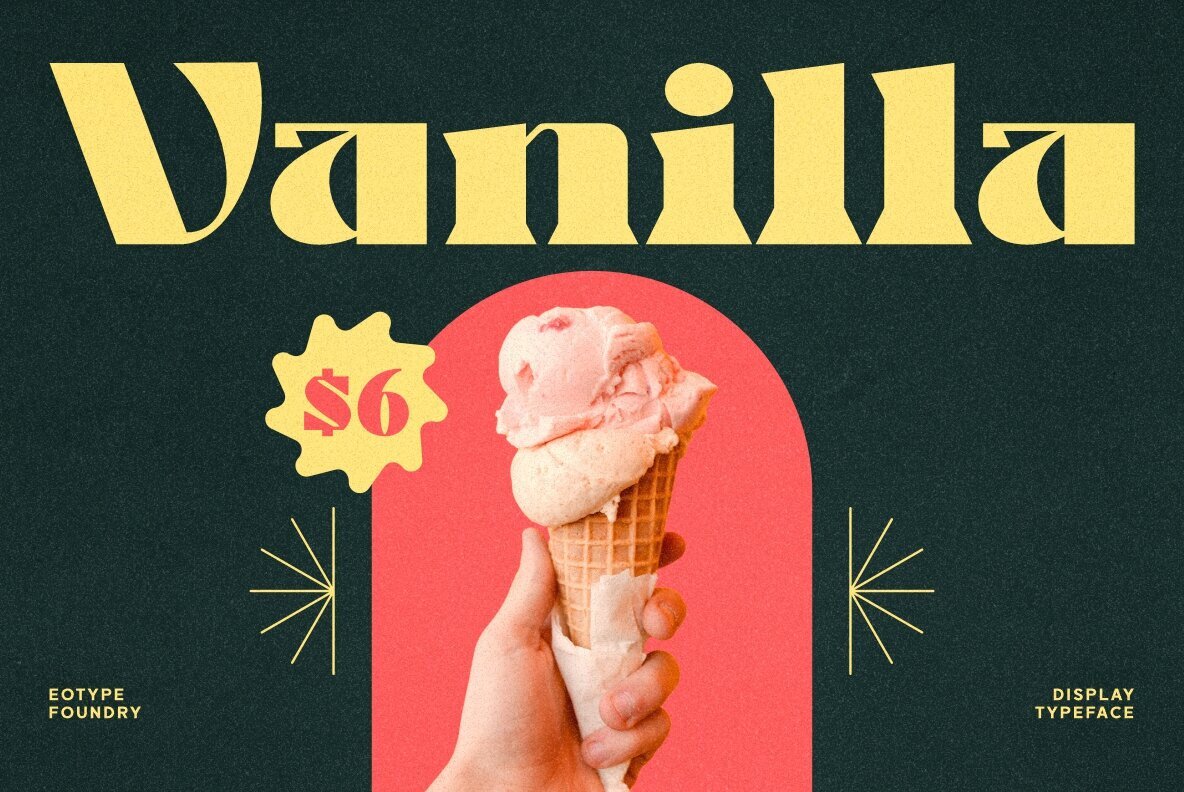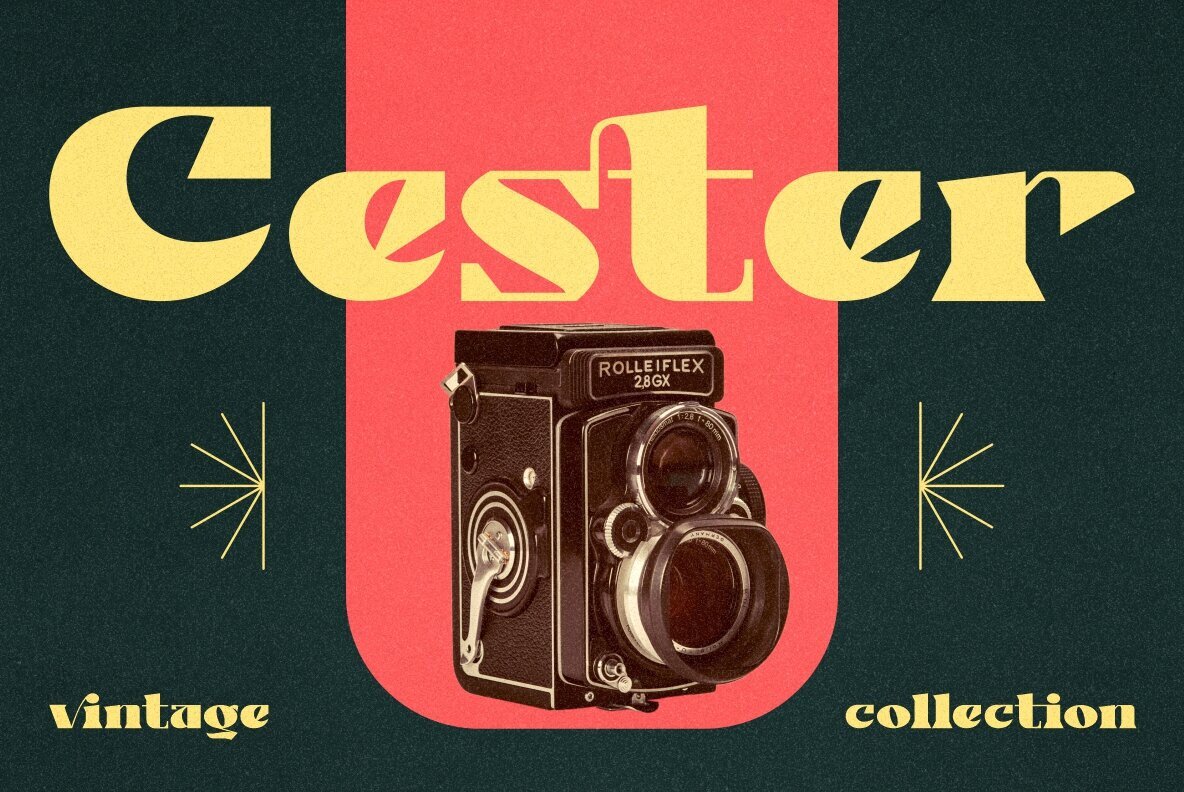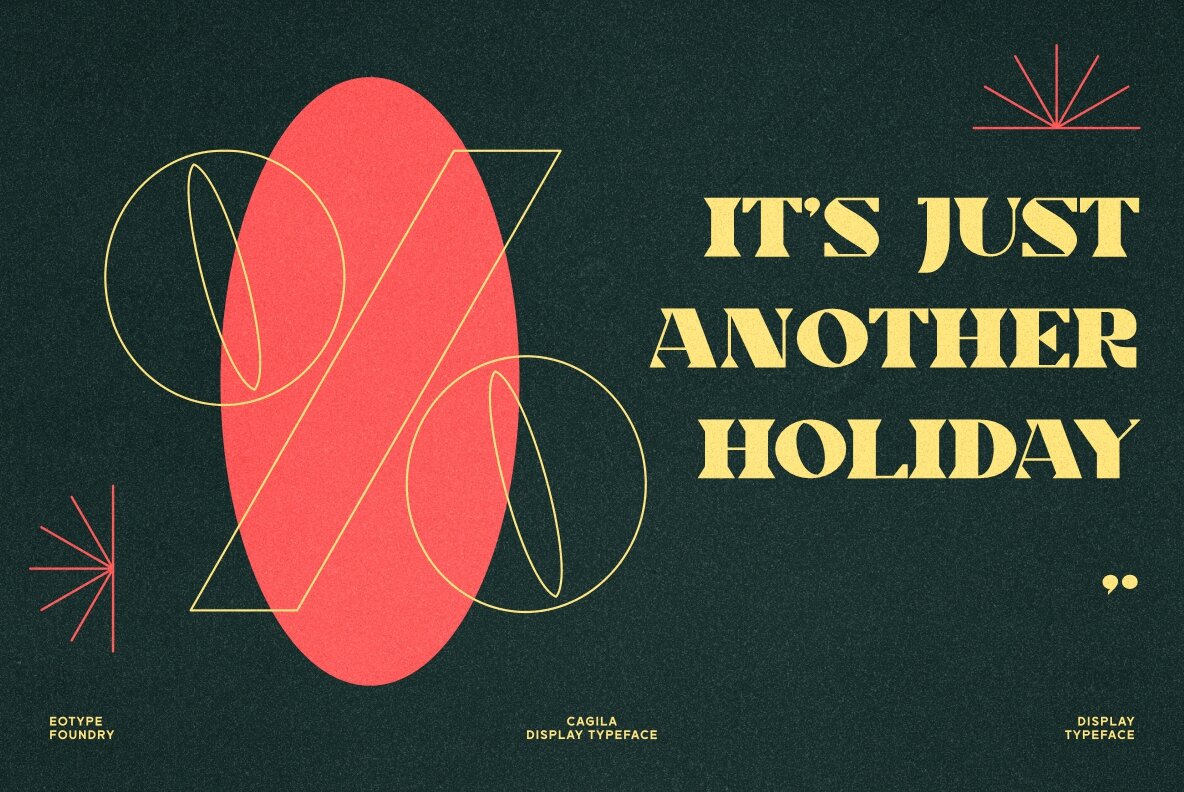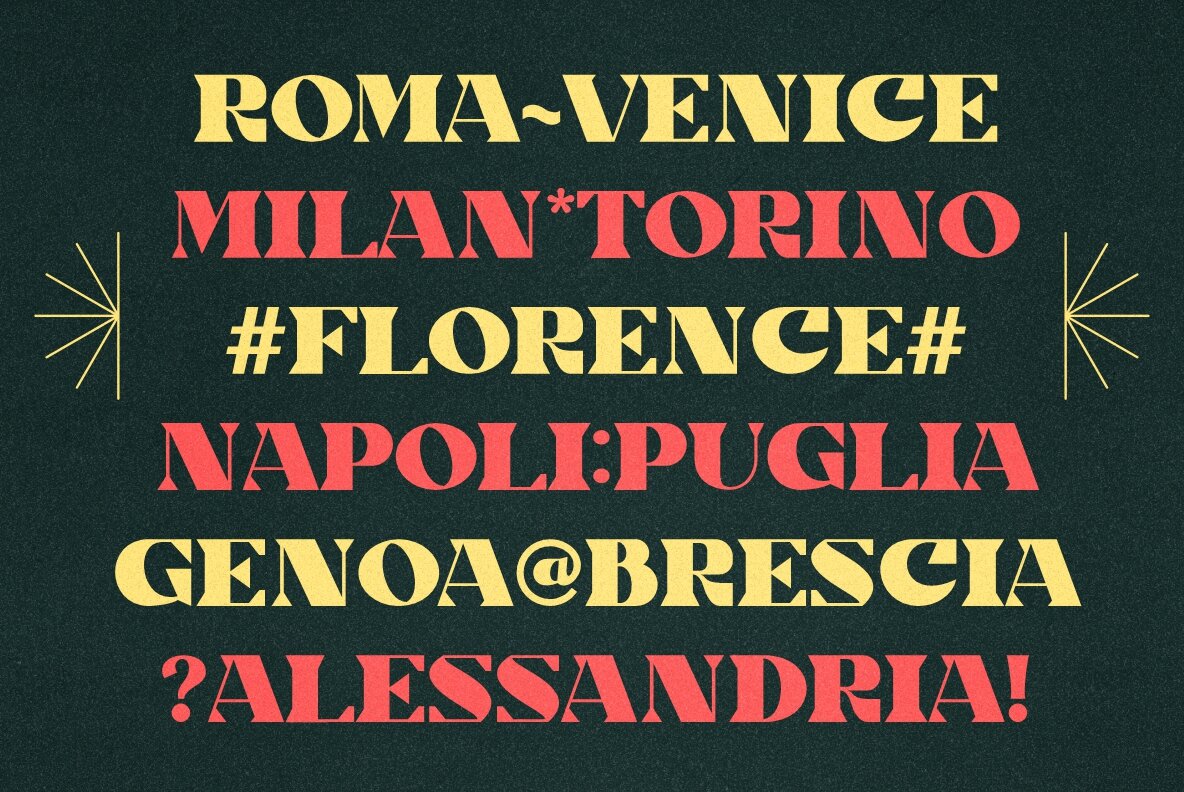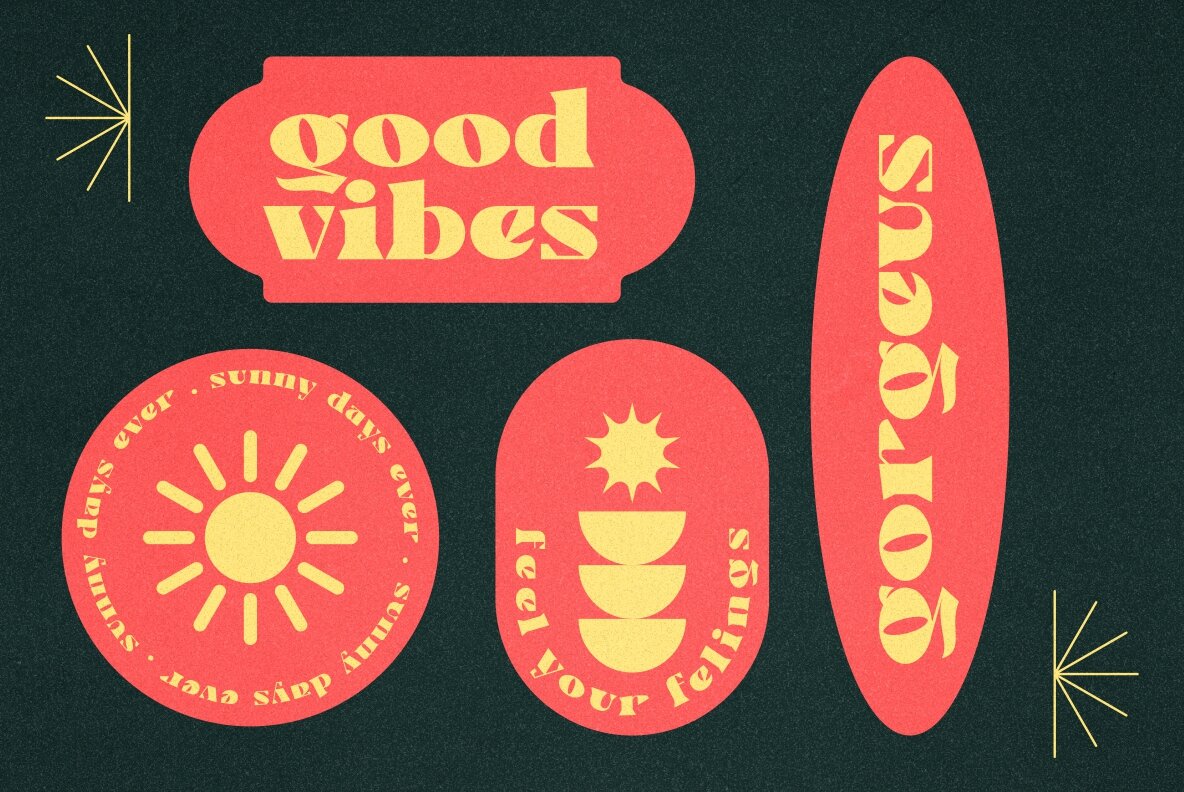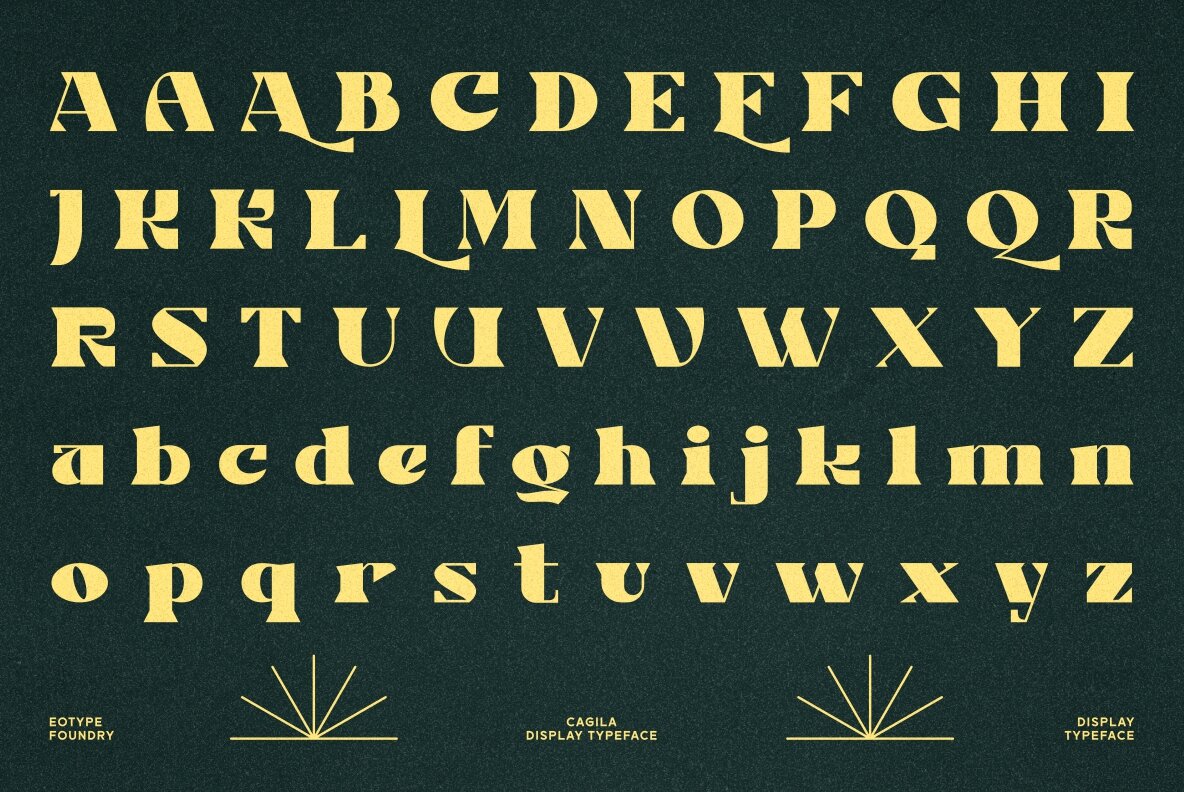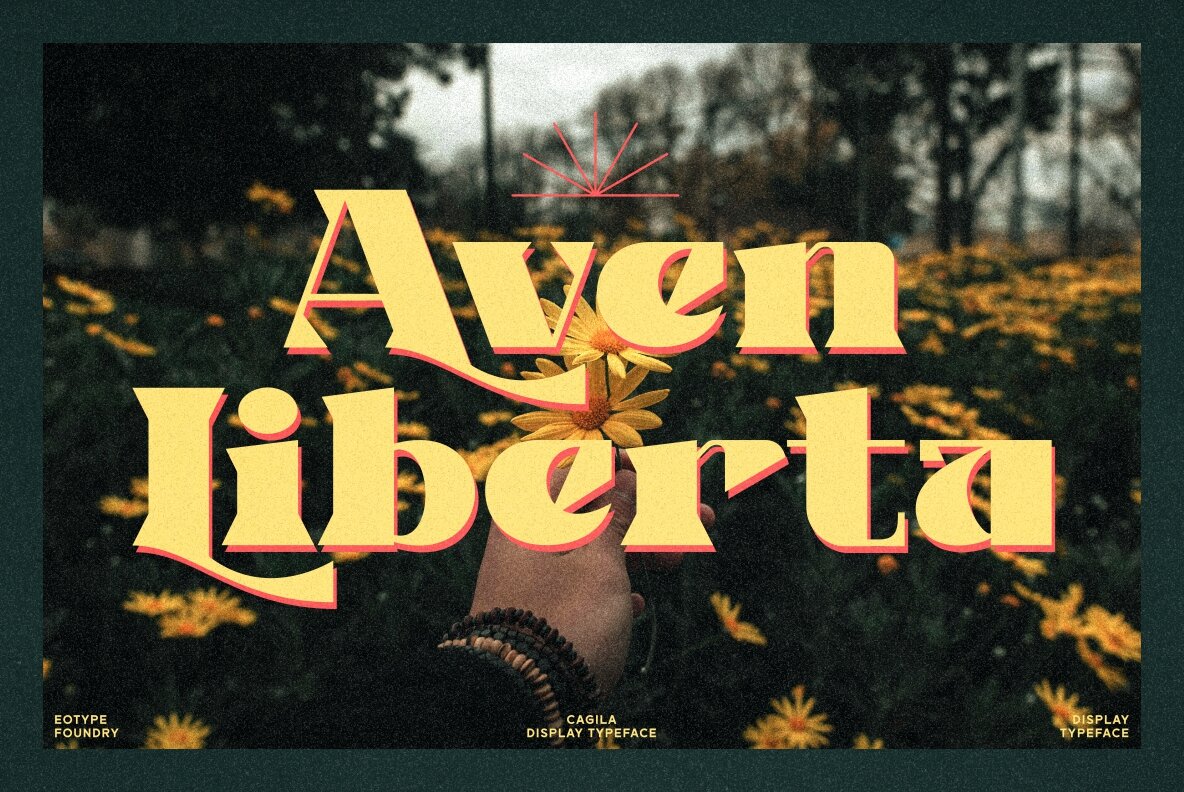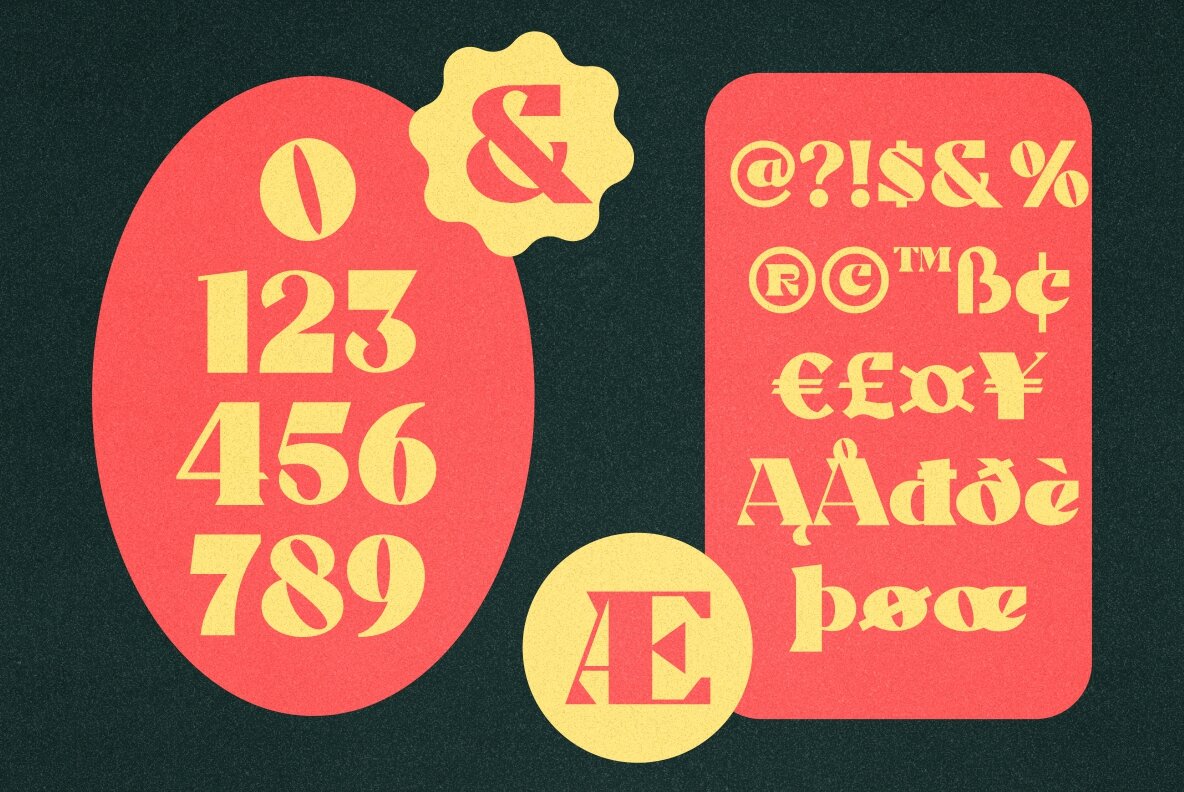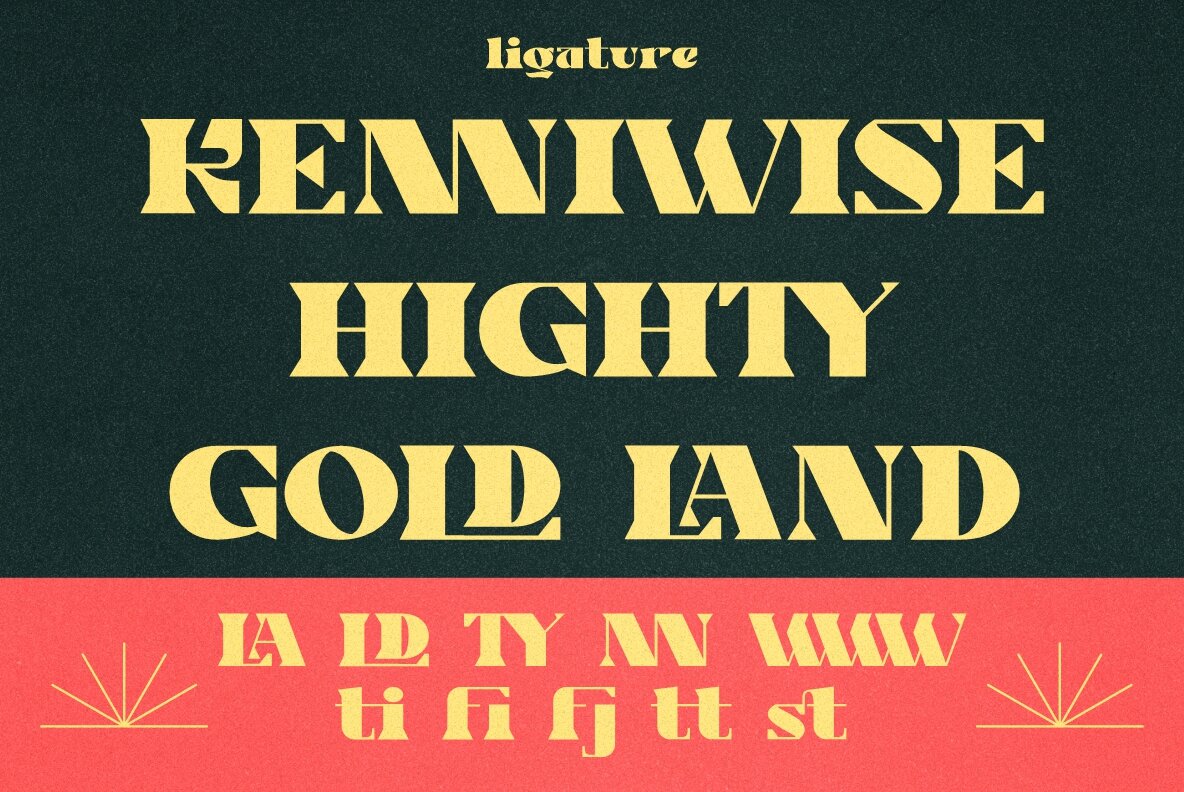
Cagila Font
Cagila is a versatile serif font that balances modernity and elegance to suit a range of creative endeavors. Embedded with stylistic alternates and ligatures, this typeface lends a unique style to projects, emphasizing both beauty and functionality. With multilingual support, it adapts seamlessly across different global applications. Consider Cagila for crafting distinctive logotypes or elevate your magazine layouts with its refined aesthetic. This font complements a variety of design projects, offering a sophisticated touch to your creative portfolio.Cagila: Modern Serif With Elegant Flair